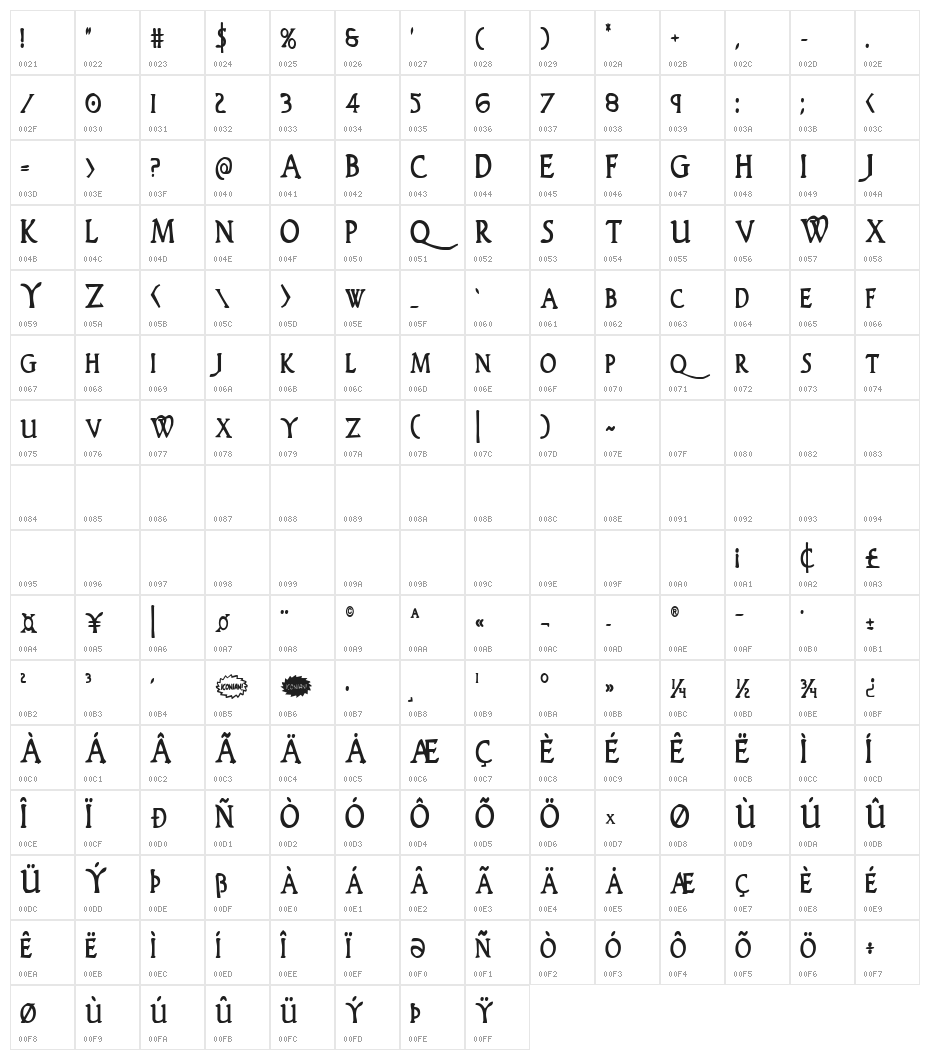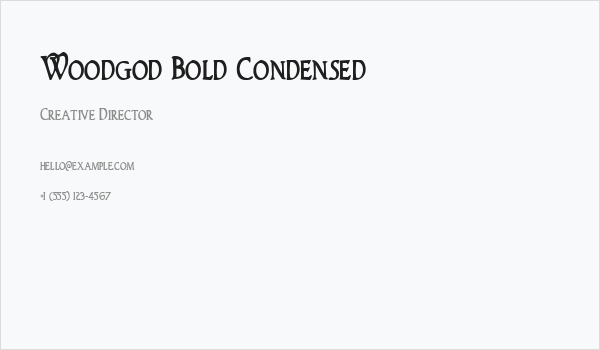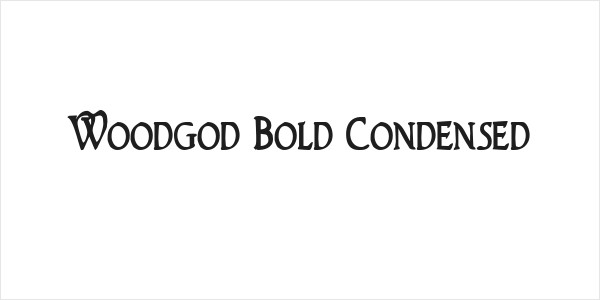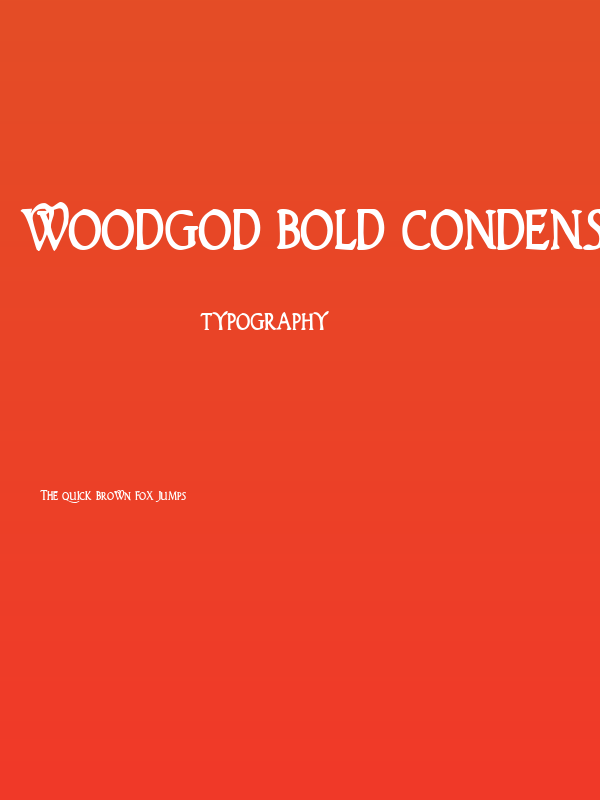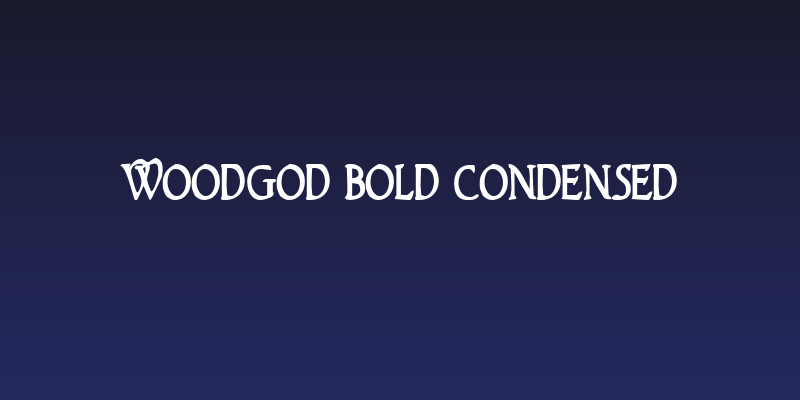
Woodgod Bold Condensed Font
Woodgod Bold Condensed Description
This font features a bold and condensed style with a distinctive, artistic flair. The characters exhibit a unique curvature, especially noticeable in letters like 'W' and 'R', which have an almost calligraphic quality. The uppercase and lowercase letters maintain a consistent weight, providing a strong visual impact. Numbers are stylized to match the overall aesthetic, with a slightly playful yet sophisticated appearance. The special characters are well-integrated, offering a cohesive look across the board. This font's boldness and condensed form make it ideal for eye-catching designs.
| Proposed Projects | Ideal for branding, poster design, and headlines where a strong, artistic presence is needed. |